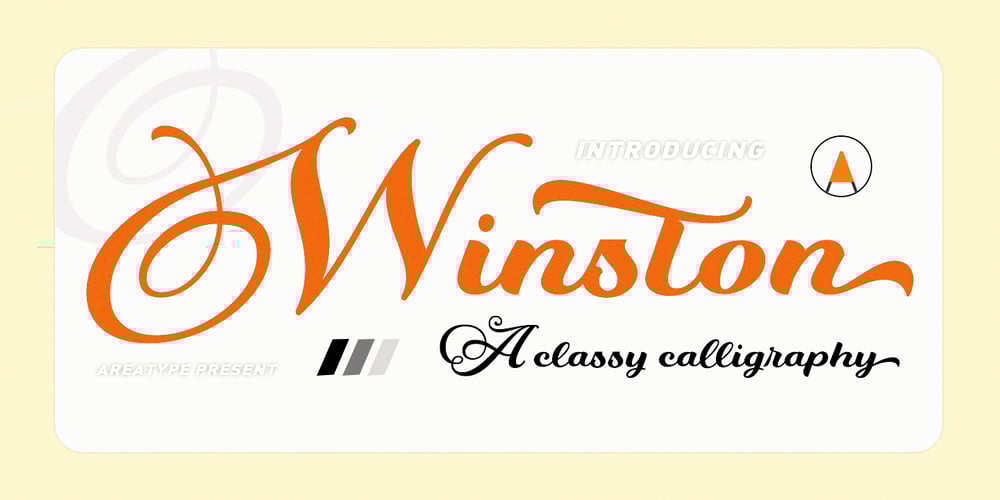
Winston Script
Winston Script font
Winston Script Font Family was designed by Ambia and published by Areatype. Winston Script contains 1 styles and family package options. Winston Script is a stylish script classy font, described by an elegant touch, perfect for your favorite projects. This font is PUA encoded which means you can access all the glyphs and ligatures with ease!Files included: Numerals Punctuation Stylistic Alternates & Ligatures